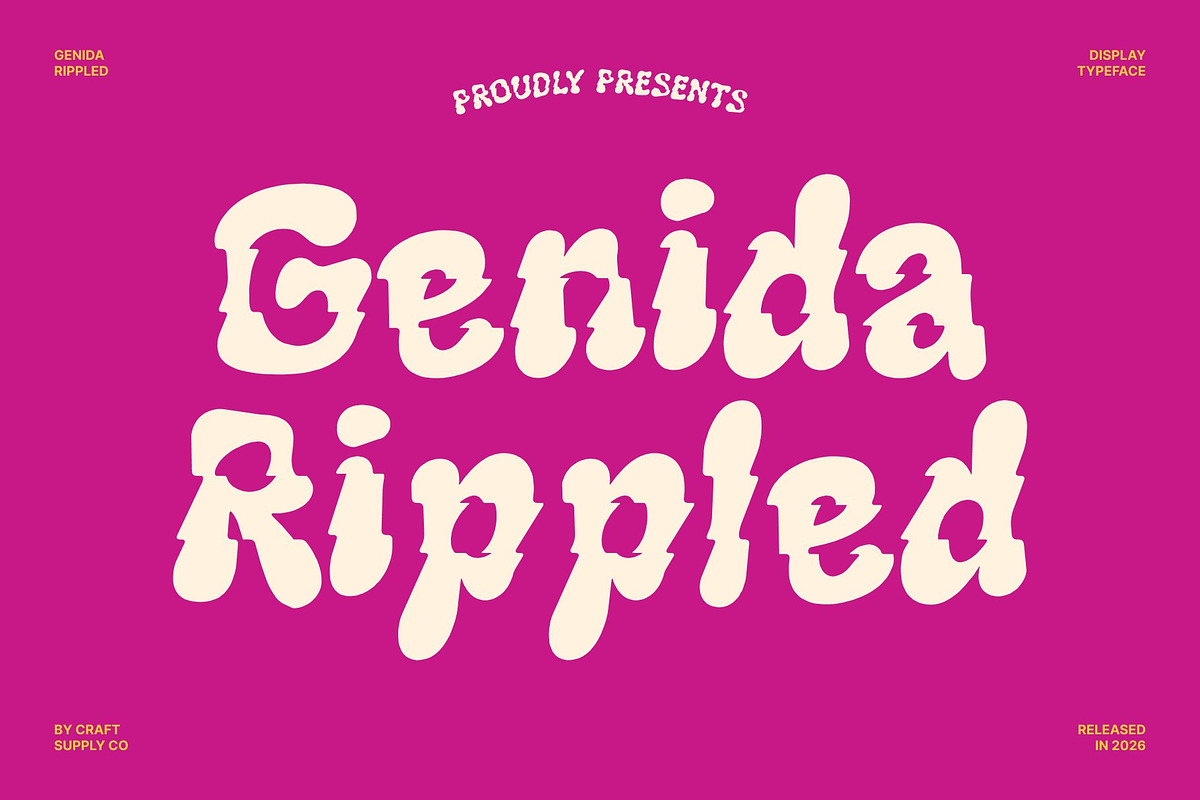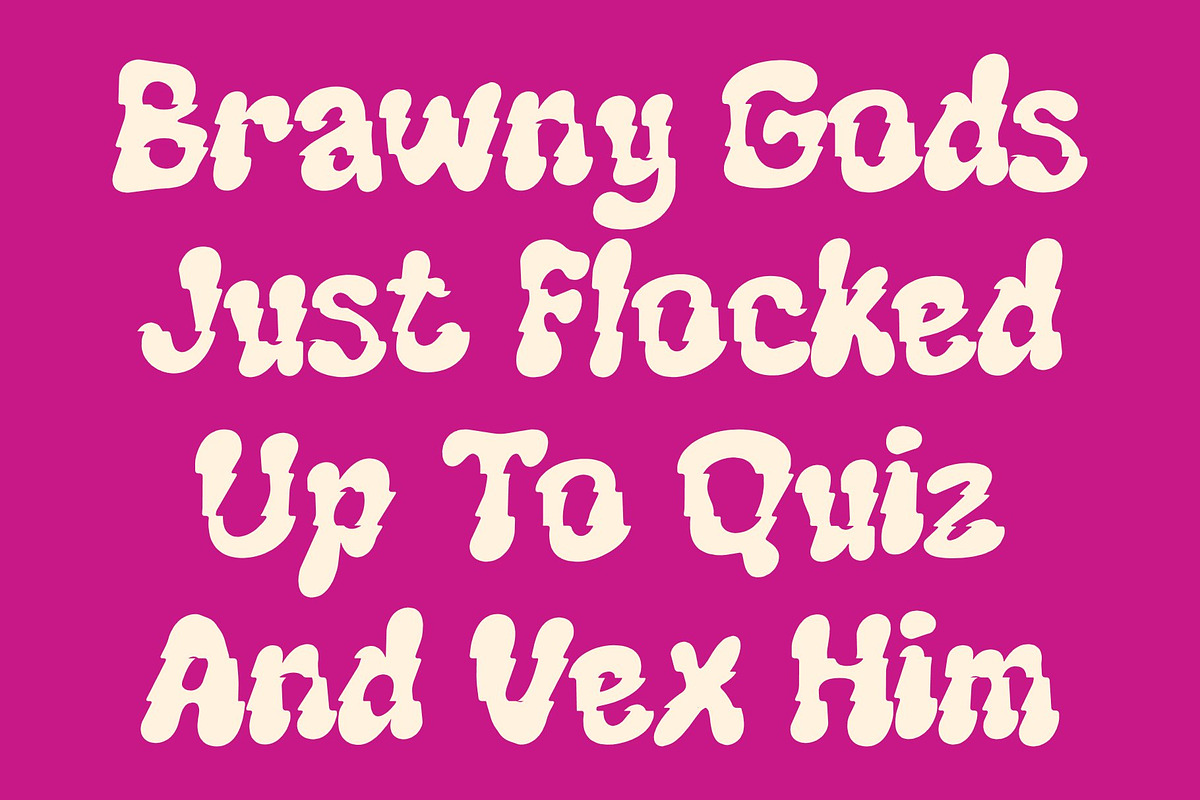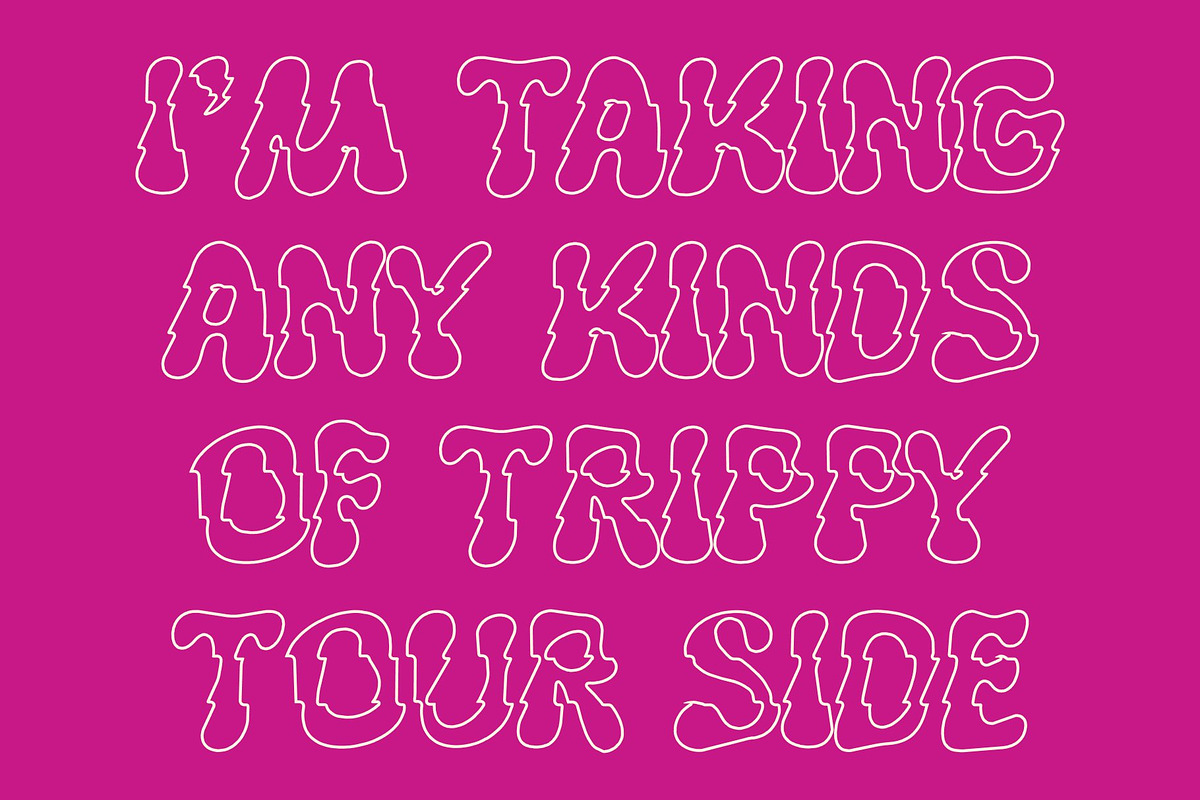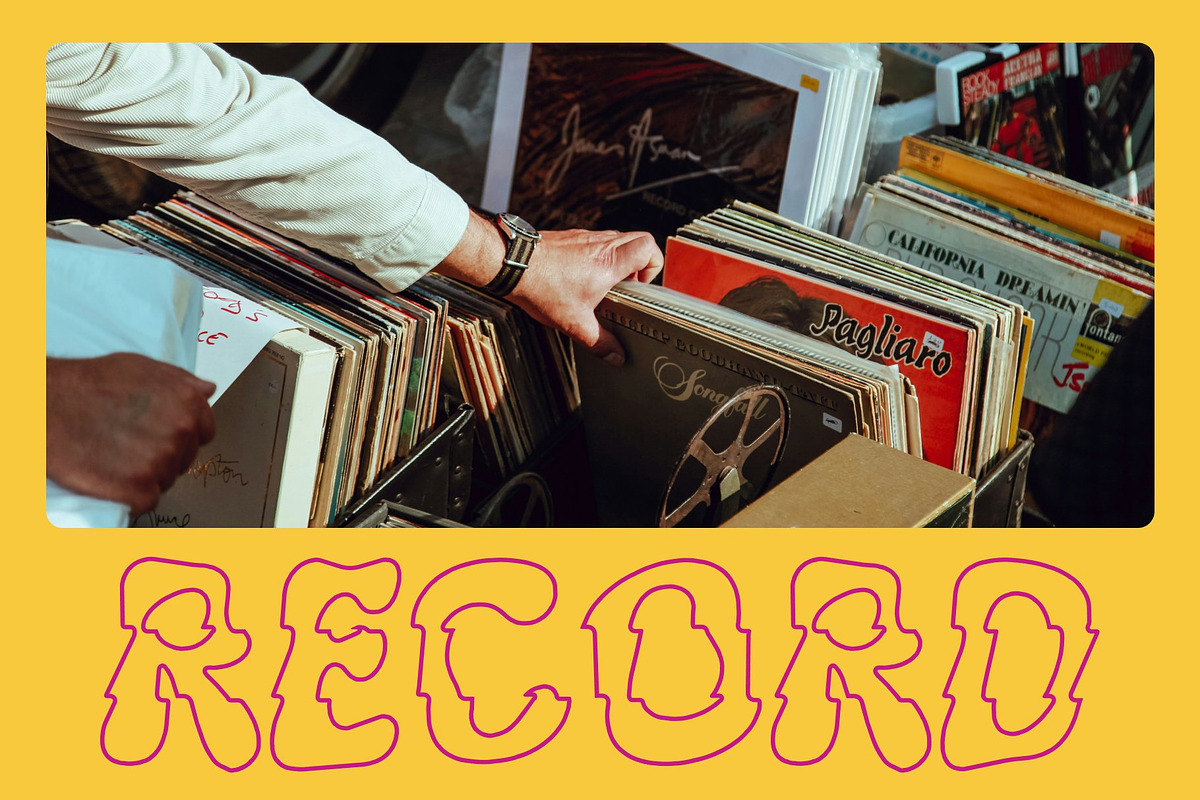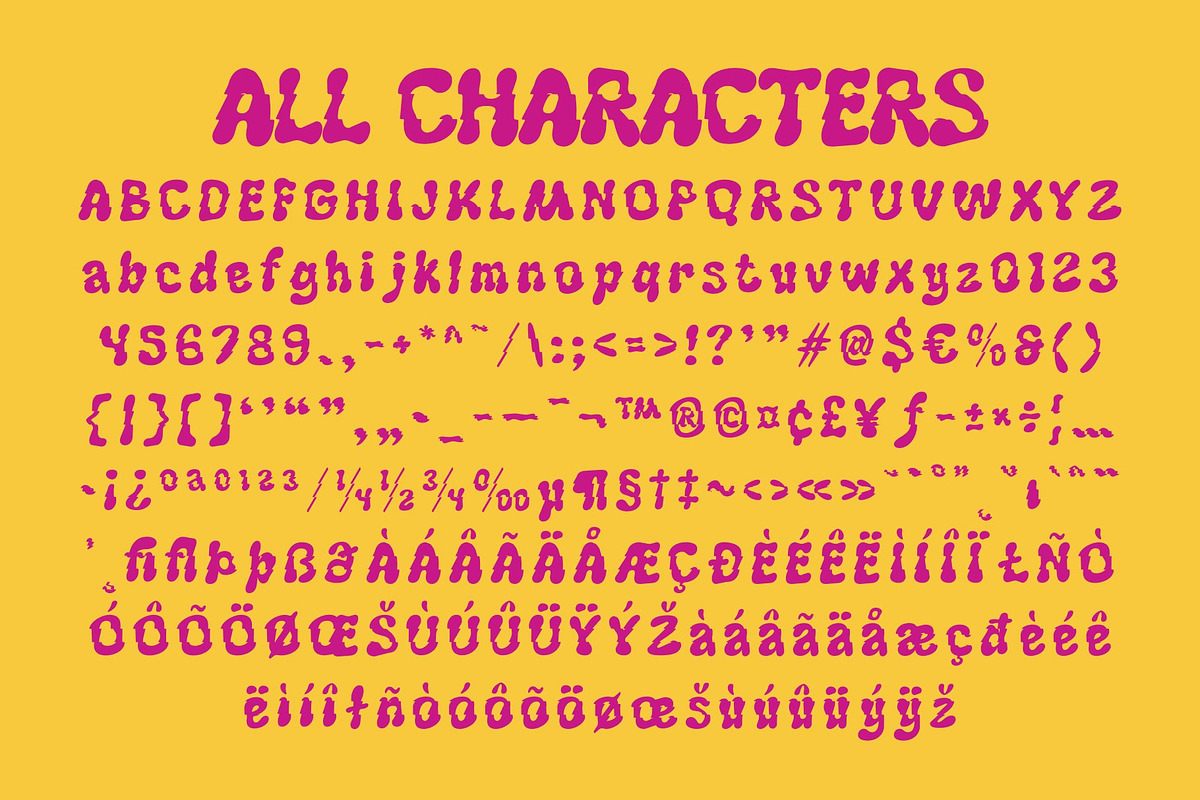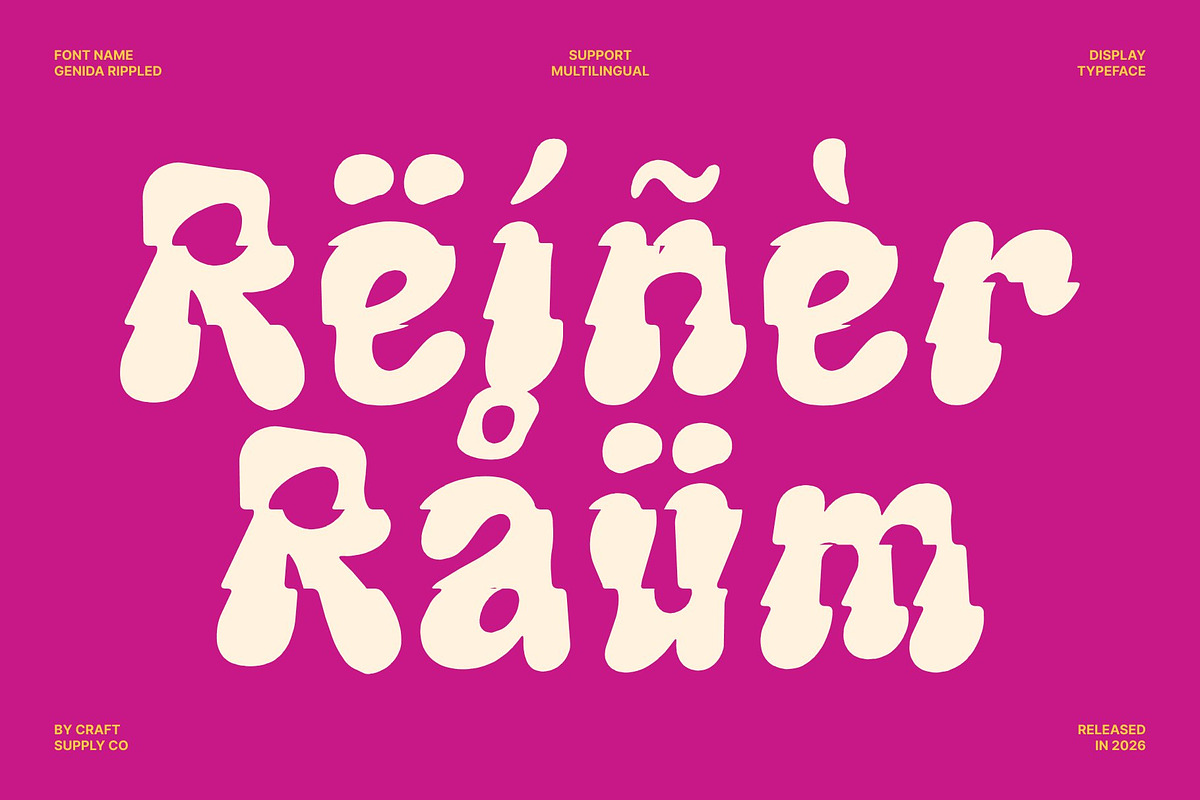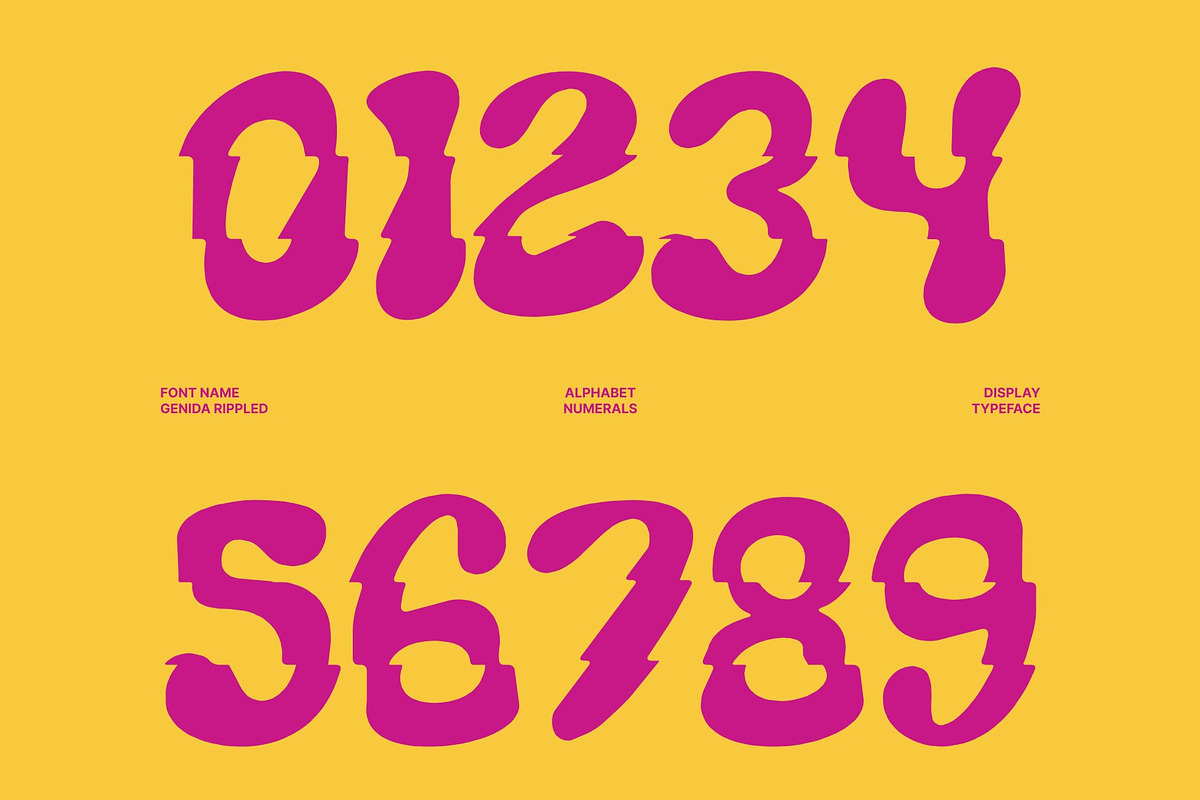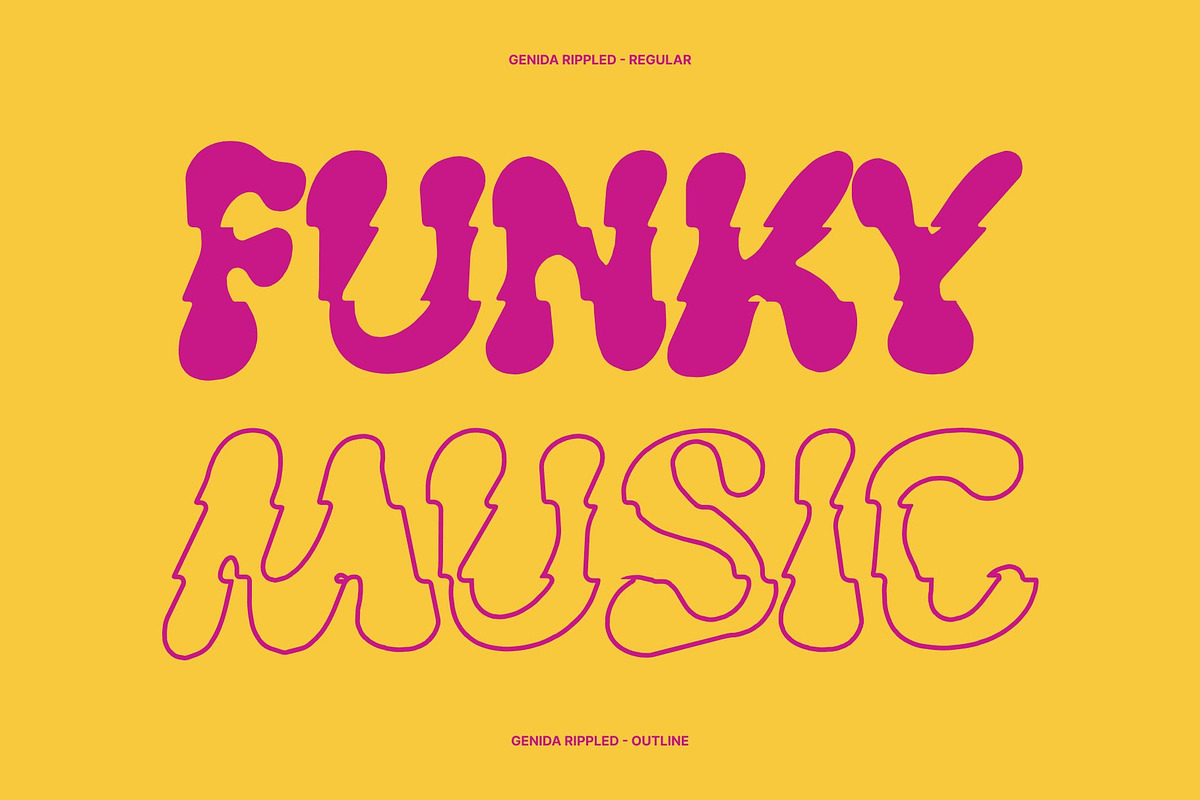
Genida Rippled
Genida Rippled – Funky Typeface with Psychedelic Liquid Energy
Psychedelic Vibes in Every Letter This is a funky and trippy display typeface designed to inject bold personality and artistic freedom into every composition. Inspired by psychedelic visuals and expressive typography, this font transforms text into a vibrant visual experience. Its unconventional shapes and playful rhythm create a lively atmosphere that instantly captures attention and sparks curiosity. The result is a typeface that feels experimental, artistic, and full of creative spirit.
Stand Out with Bold and Eye-Catching Style Designed to break away from the ordinary, this font helps your work stand out in crowded visual spaces. The distinctive character shapes create a strong visual signature that makes headlines and titles unforgettable. It thrives in posters, album covers, social media graphics, and branding that aims to feel expressive and unconventional. This font turns typography into a centerpiece, ensuring your message remains memorable and visually striking.
Perfect Companion for Creative Expression This font empowers designers to push boundaries and explore bold creative directions. Its playful and unconventional personality encourages experimentation and artistic storytelling. The lively rhythm of the letterforms adds energy and emotion to layouts, making every project feel more dynamic and engaging. It is an ideal choice for designers who want typography that reflects originality, imagination, and fearless creativity.
Genida Rippled Regular
Genida Rippled Outline